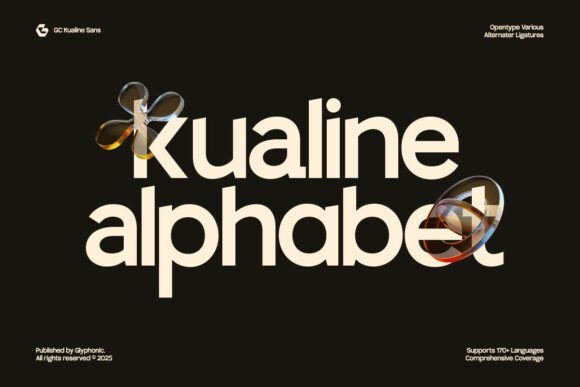
Have you ever stared at a beautiful design and wondered what made it stand out? For designers, the answer often lies in the choice of font. A well-crafted typeface can elevate an entire visual narrative, transporting your message to a new level of clarity and sophistication. One such font that has captured the hearts of creatives is the GC Kualine Font, a modern sans-serif masterpiece designed to make a bold yet refined impression.
With its clean structure and balanced composition, the GC Kualine Font is the perfect choice for designers seeking to convey confidence and style. Its versatility makes it suitable for a wide range of applications, from high-end fashion branding to tech presentations and lifestyle content. Whether you’re working on a high-profile project or a personal passion, the GC Kualine Font is an invaluable asset that will take your visual communication to the next level.
Gc Kualine Font Key Features
- Font Family: Gc Kualine Font is a sans-serif font family, ideal for various digital and print applications.
- Font Size and Style: Offers a range of font sizes and styles, from 10pt to 72pt, with various weights (Thin, Light, Regular, Medium, Bold, ExtraBold) to cater to diverse design requirements.
- Resolution and Scalability: Optimized for high-resolution displays (Retina, 4K, and beyond) and scalable for use in various digital applications, including web, mobile, and desktop interfaces.
- Unique Characteristics: Gc Kualine Font features a modern, clean design with a focus on legibility and readability, making it an excellent choice for body text, headings, and titles in various contexts.
- Language Support: Offers comprehensive language support, including Latin, Cyrillic, Greek, and Devanagari scripts, to cater to diverse linguistic needs.
Gc Kualine Font Review
Overall, I think Gc Kualine is a solid choice for digital typography. It’s modern, clean, and has a nice balance of form and function.
- Legibility: The font is easy to read, even at small sizes, making it perfect for digital displays.
- Flexibility: Gc Kualine comes in a range of weights and styles, allowing you to tailor the look to suit your design needs.
- Neutral feel: The font has a neutral, timeless quality that works well in a variety of design contexts.
- Lack of character: Compared to some other fonts, Gc Kualine feels a bit bland and lacking in personality.
- Not ideal for display use: While the font is readable at small sizes, it can feel a bit generic and unengaging when used for headings or display text.
Overall, I’d say Gc Kualine is a safe choice for designers who want a clean, modern font without too much flair. However, if you’re looking for something that really stands out, you may want to consider other options.
Tips for Getting the Most Out of Gc Kualine Font
Here are some tips to help you get the most out of Gc Kualine Font:
– Use Gc Kualine Font for headings and titles to add a touch of elegance and sophistication.
– Pair Gc Kualine Font with other fonts to create a unique and interesting typography combination.
– Experiment with different font sizes and colors to create visual interest and emphasis.
Gc Kualine Font is commonly used for:
– Designing luxury and high-end branding materials.
– Creating elegant and sophisticated invitations and event materials.
– Adding a touch of sophistication to digital